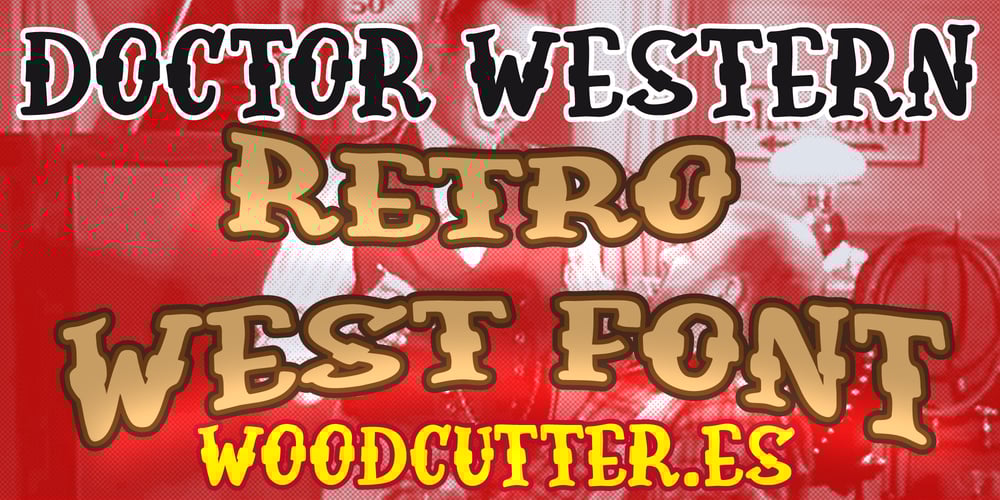
Doctor Western Font Family was designed by Jordi Manero and published by Woodcutter. Doctor Western contains 1 styles and family package options. “Doctor Western” is a western-style font that adds a slightly playful touch to its letters. Designed in uppercase and including accents, this typeface captures the essence of the Old West with a modern, whimsical twist. Its letters evoke the typography of old cowboy movie posters but with a hint of humor and light-heartedness that makes it perfect for creative and eye-catching projects. Ideal for titles, posters, and themed designs, “Doctor Western” will bring a sense of originality and charm to your graphic creations.–Uppercase